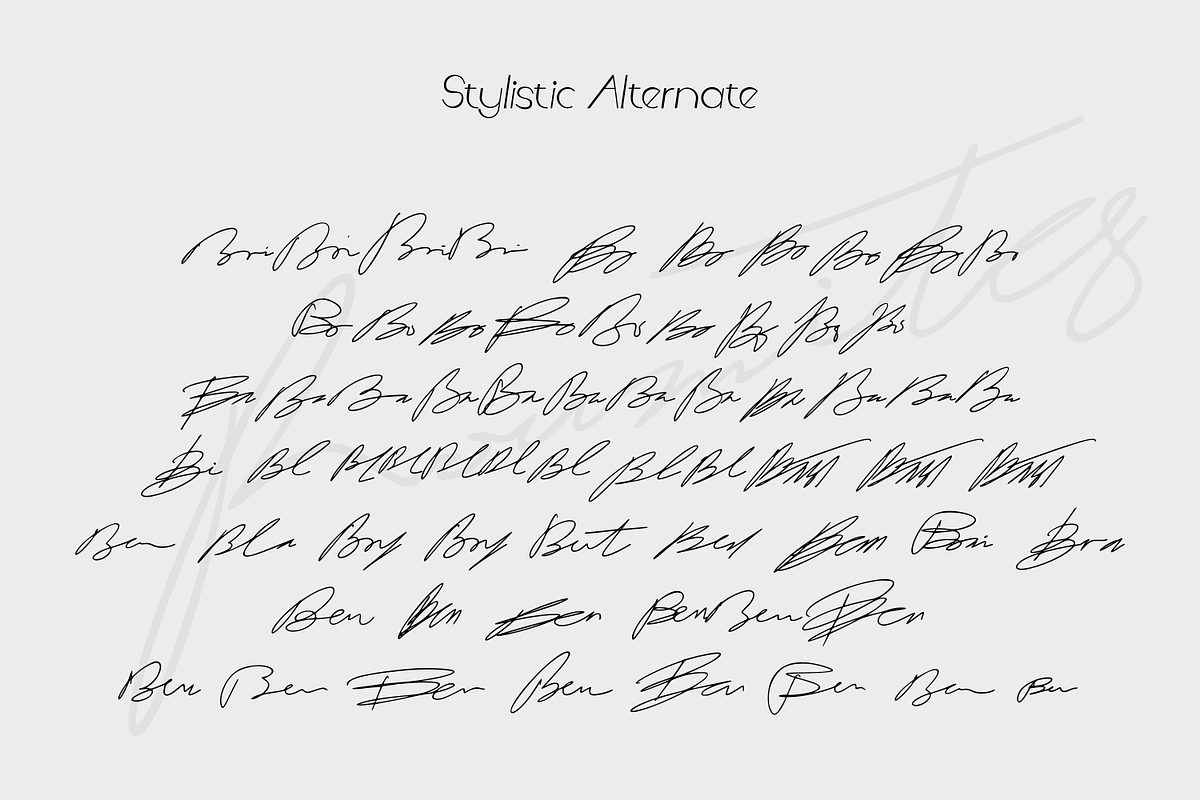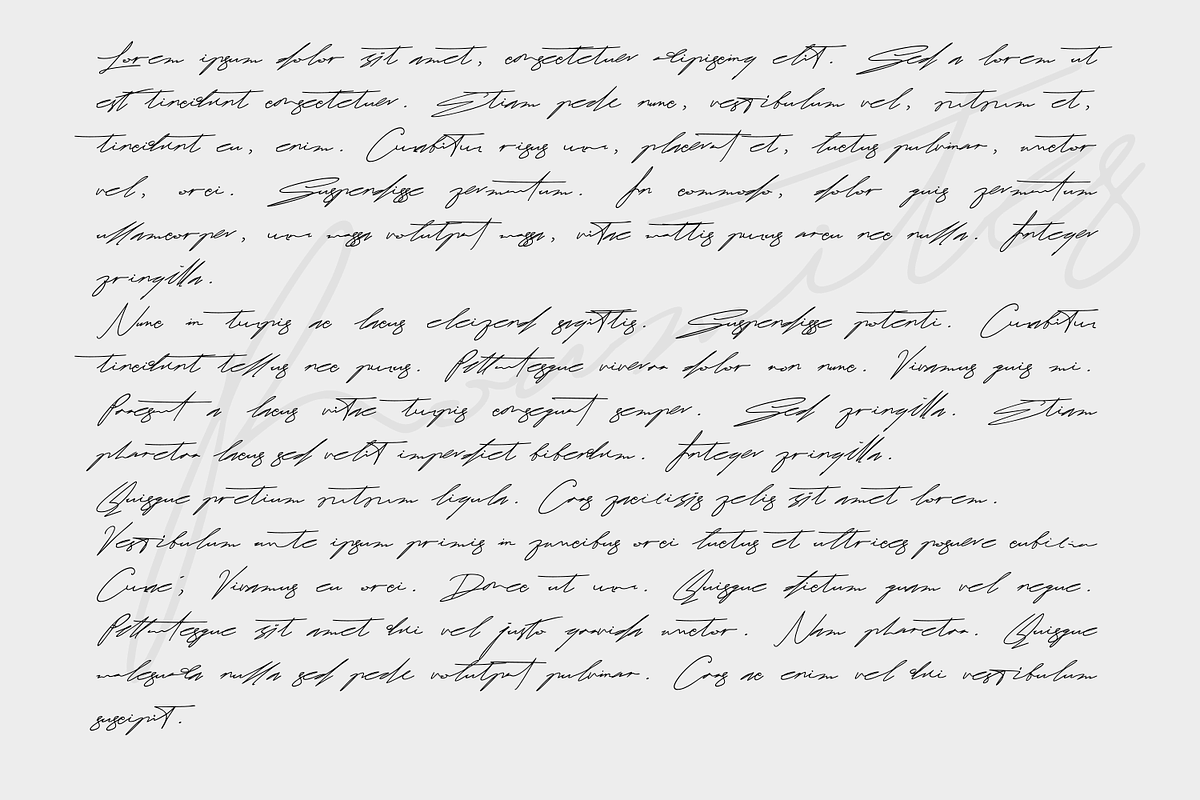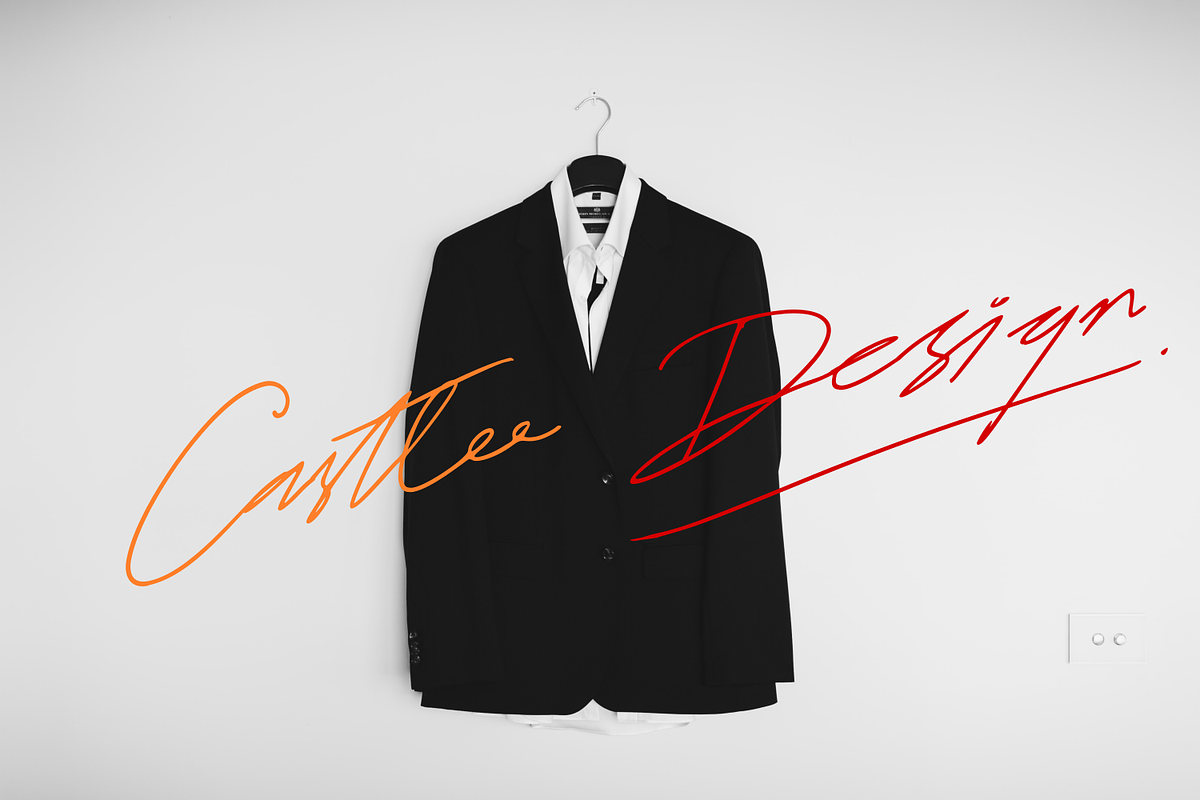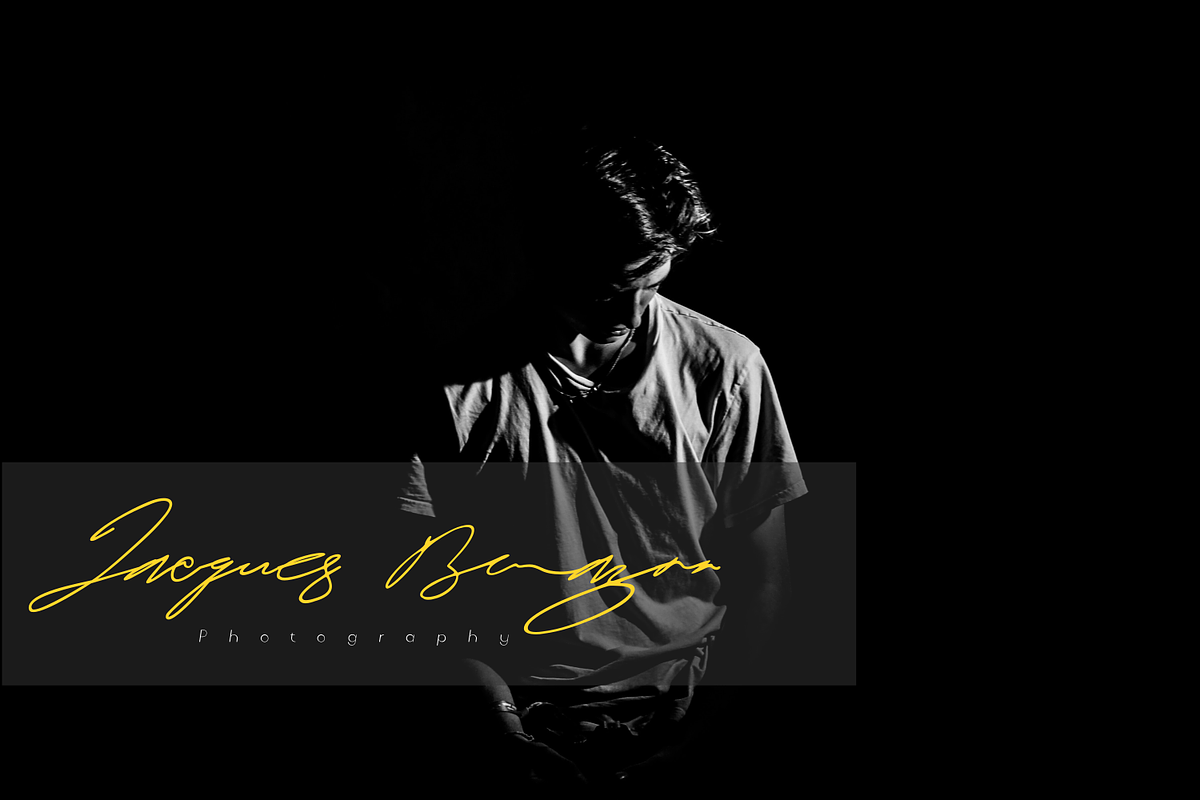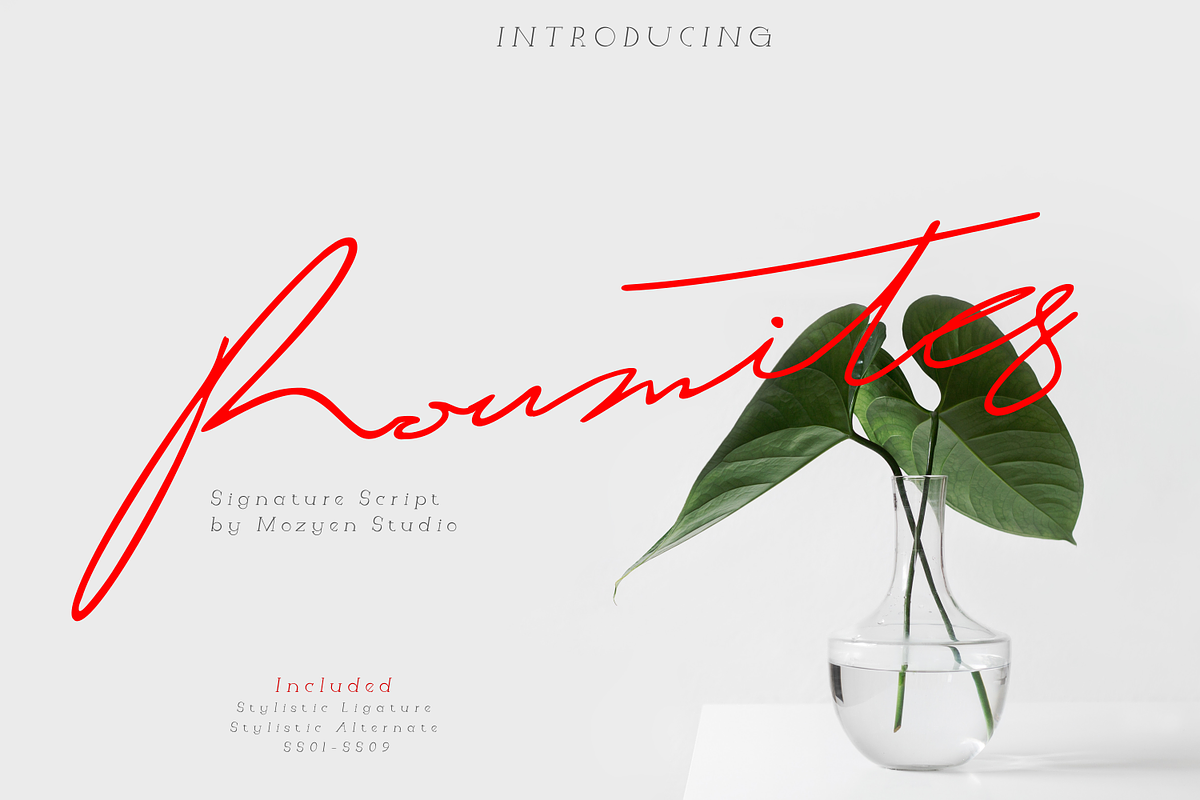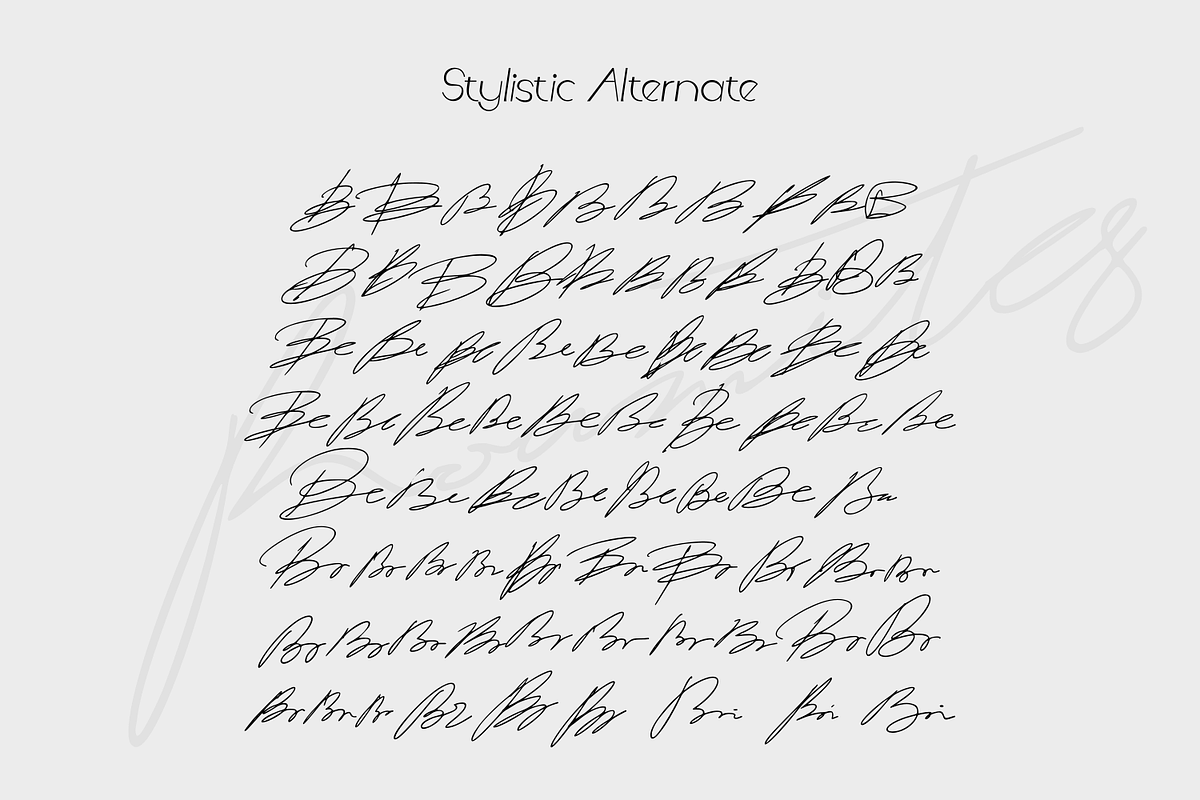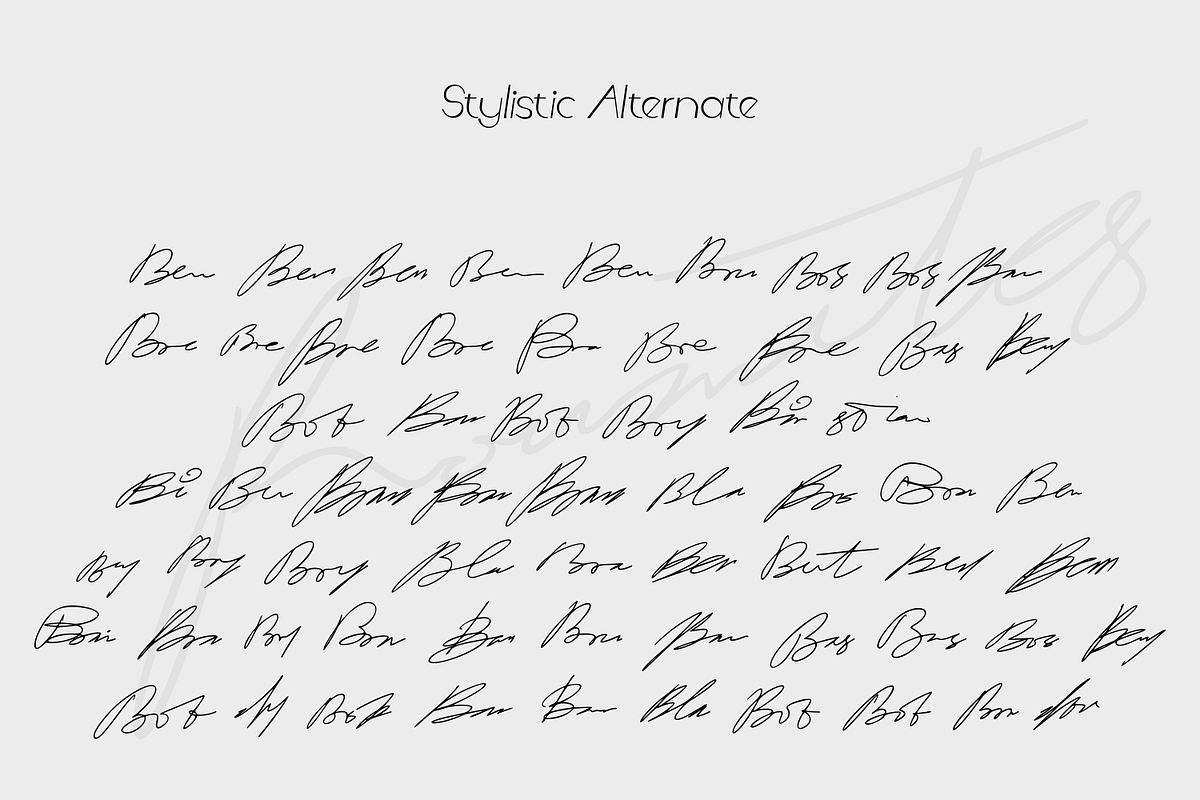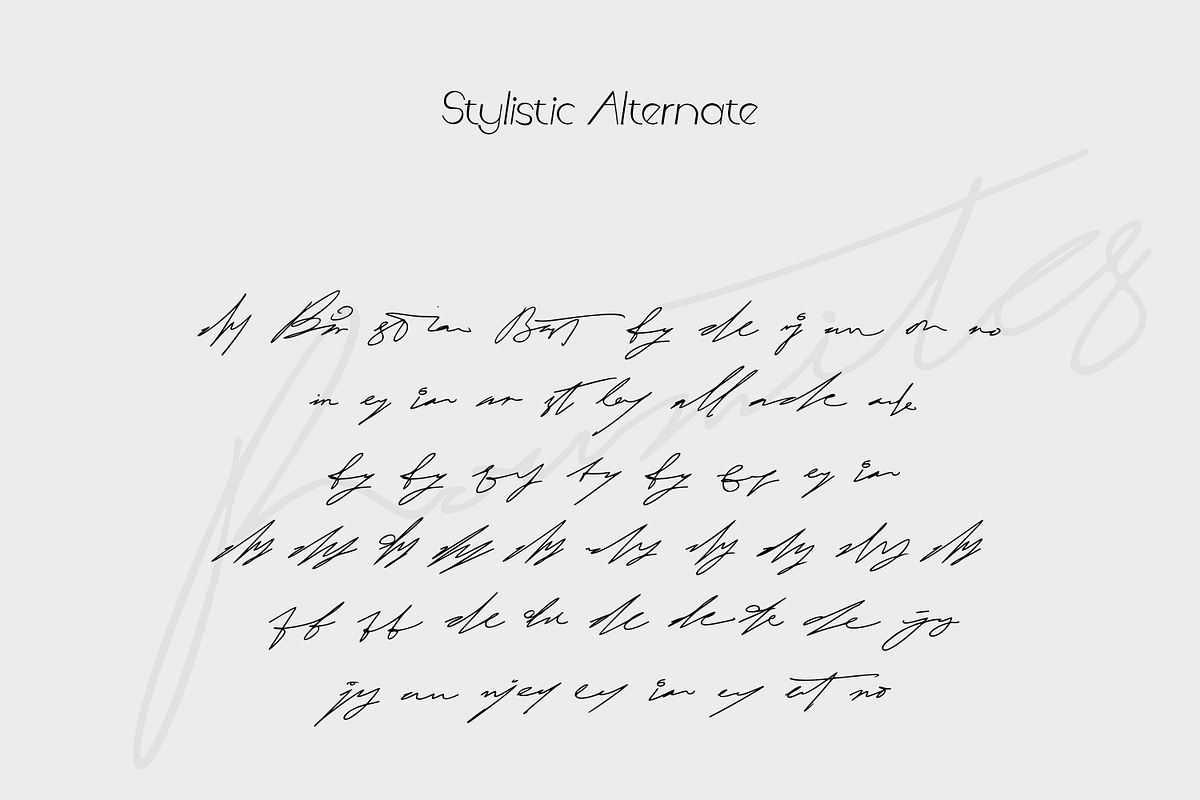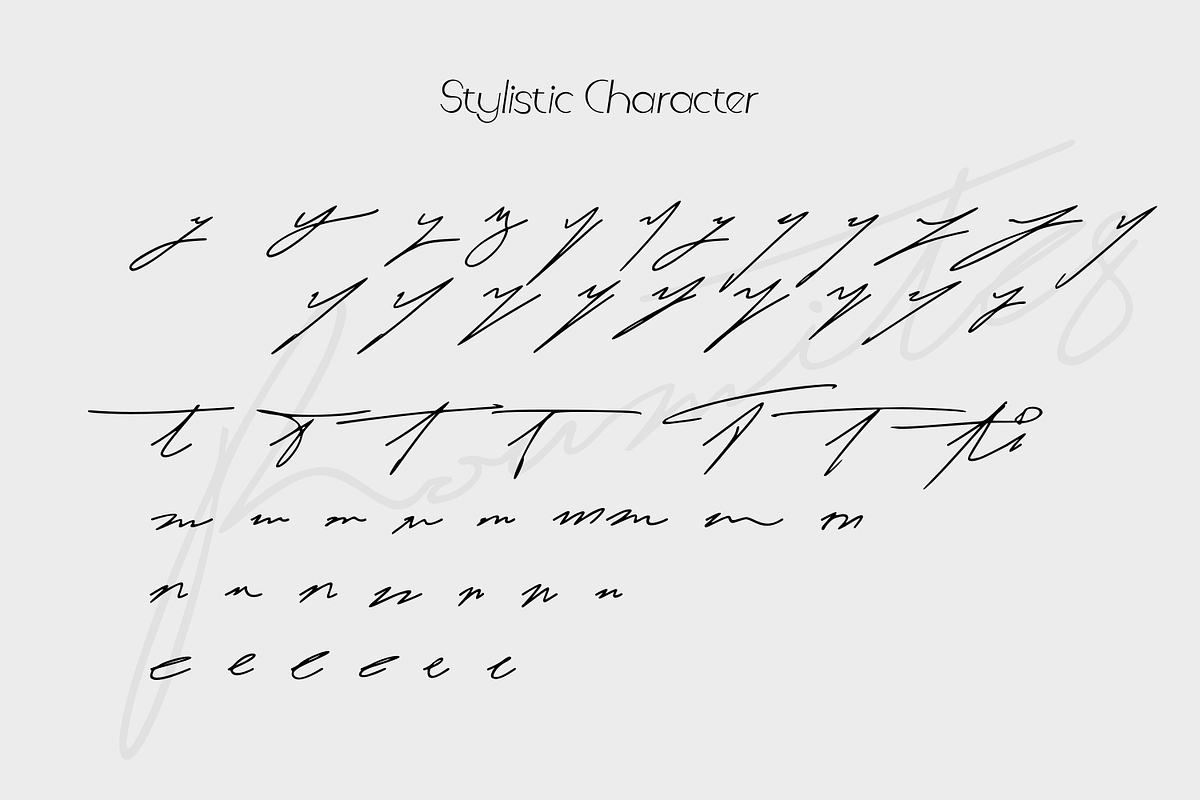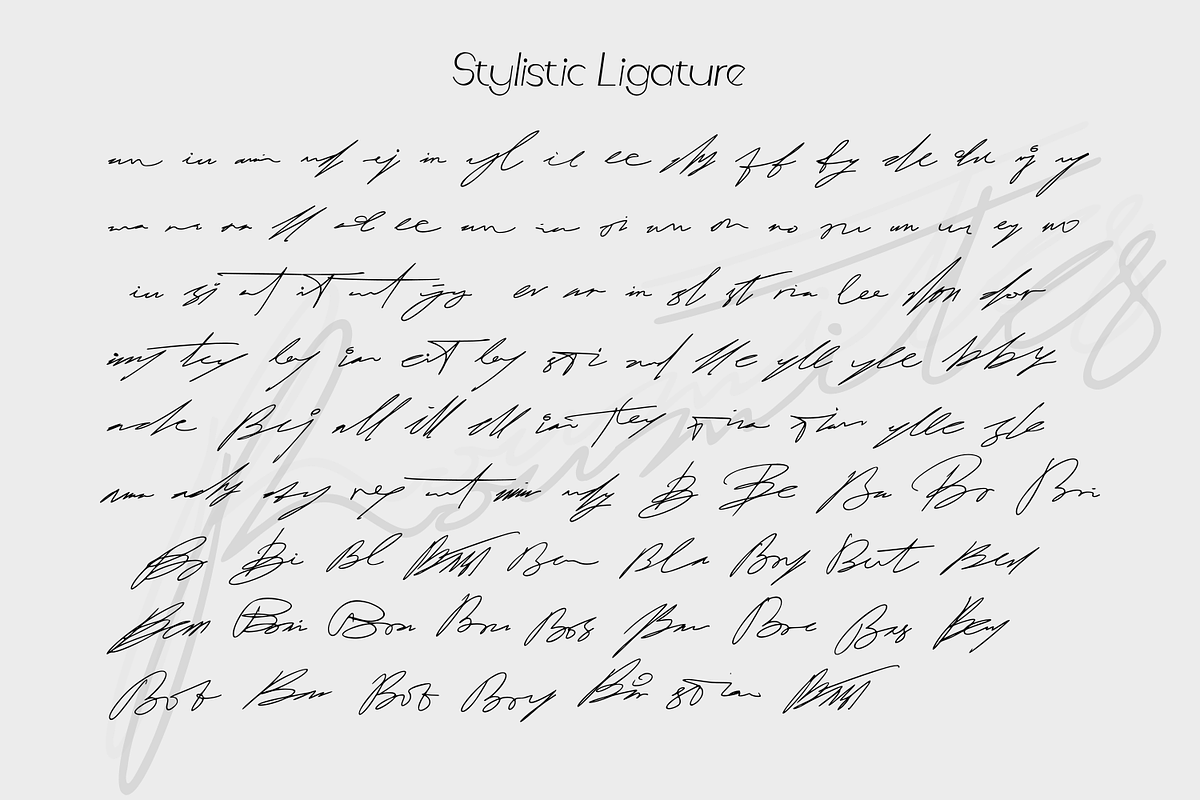
Roumites | Signature Script
Hello Ladies and Gentlemen .. Introduce Roumites Signature Script. This is perfect for your feminine design, you can also make a branding such as cosmetics products, Branding photography, invitation designs or your trademark. Roumites is an elegant and flowing handwritten font. It is PUA encoded which means you can access all of the glyphs and swashes with ease! It features a varying baseline, smooth lines, gorgeous glyphs and stunning alternates. It maintains its classy calligraphic influences while feeling contemporary and fresh. Fall in love with this font and bring your projects to the highest levels!
Available: -Uppercase -Lowercase -Numeral and punctuation -Multilingual support -Stylistic ligature : complete 2 ligatures and several 3 ligatures -Stylistic character alternate -access with PUA encoded.
Stylistic Ligature : an iu ami nd ej in yl il ee dy ff by de du nj iy ma na ra ll ad ee an ia oi au on no ru un ur ey ao iu si at it ent jy er ar in sl st ria lee don dor iny tey ley ian eit ley sti and lle yll yle bby ade Bej all ill ell ian tley tira tian ylle sle ama ady aby rey ent min ndy B Be Ba Br Bri Bo Bi Bl Bast Ben Bla Bry But Bed Bem Brai Bra Bru Bos Bav Bre Bas Beny Bob Bar Bof Boy Bir stian Bast B Be Ba Br Bri Bo Bi Bl Bast Ben Bla Bry But Bed Bem Brai Bra Bru Bos Bav Bre Bas Beny Bob Bar Bof Boy Bir stian Bast dy by de nj an on no in ey ian ar st ley all ade by dy by ey ian